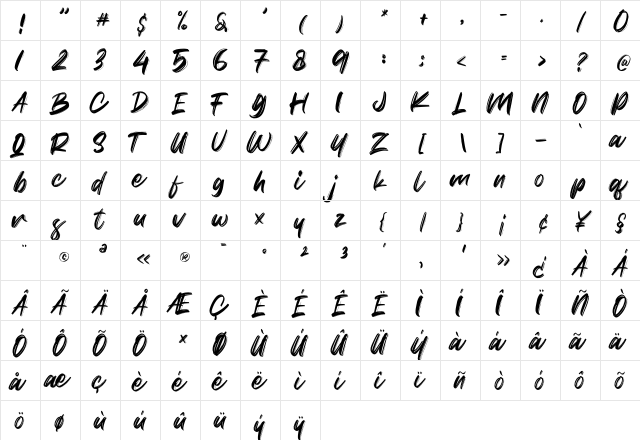
Citizen Brush Regular Font Preview
Citizen Brush Regular
Citizen Brush Regular Font Details
Design Context for Citizen Brush Typeface
Citizen Brush brings a calligraphic fluidity to the page — its connecting strokes and expressive curves give it an unmistakably human quality.
Font Pairing: Combine Citizen Brush with a simple geometric sans for maximum contrast — the tension between flowing curves and clean structure is a classic typographic pairing.
Pro Tip: Use Citizen Brush for short runs of text — names, titles, or taglines. Extended body copy in script faces tires the eye quickly.